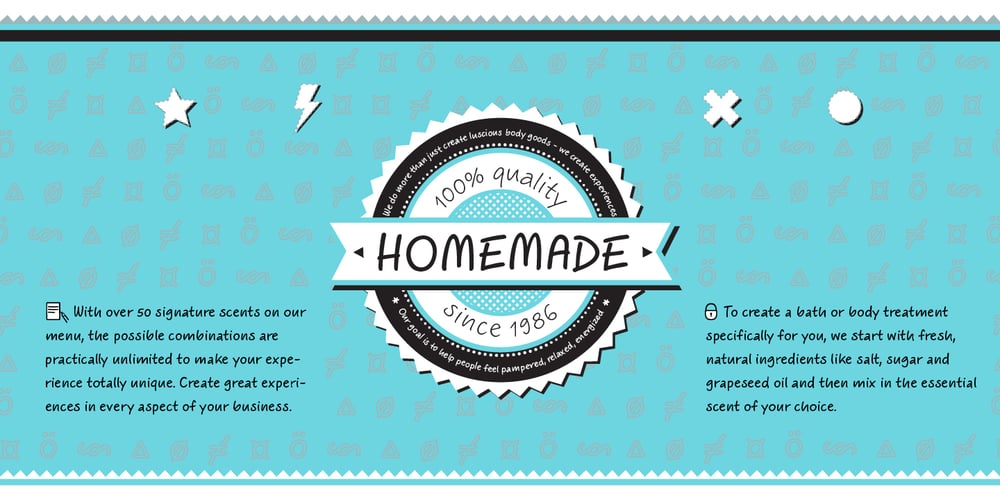
ALS Scripticus Font Family was designed by Julia Sysmäläinen and published by Art. Lebedev Studio. ALS Scripticus contains 2 styles and family package options. There are many script typefaces but there is only one Scripticus. Scripticus is like a chameleon: In whatever surroundings you put it, it adapts itself and looks like it couldn’t be anywhere else. Be it a sales advertisement, a music Website, a comic strip or a journal with complex chemical formula – Scripticus always solves the problem in a natural and leisurely way. And it never makes compromises concerning clarity. But where does Scripticus come from? … From the good old high school blackboard! Blackboards have become almost obsolete in teaching, but be it a black or white background – clear, strong characters placed on the board while the facts are explained are still one of the best ways to make and keep things understandable. Scripticus is dedicated to my high school chemistry teacher who was an expert in just this. While the letterforms come from different inspirations, its aim is the same as the pedagogical aim of my teacher: Combining clarity with a strong personality. Scripticus has a special trick to give it its natural look: Four alternates for each letter and each number plus rotation coding make the glyphs appear in lively melodic flow. In this way even mathematic equations look nice! Scripticus has a lot of OT-features that help it do its job. They are: capital spacing, localized forms, subscript, scientific inferiors, superscript, numerators, denominators, fractions, ordinals, tabular figures, historical forms, ligatures, stylistic alternates, stylistic set and ornaments. Finally, as is my general goal in type design – Scripticus supports close to one hundred languages from Latin extended to Cyrillic extended.